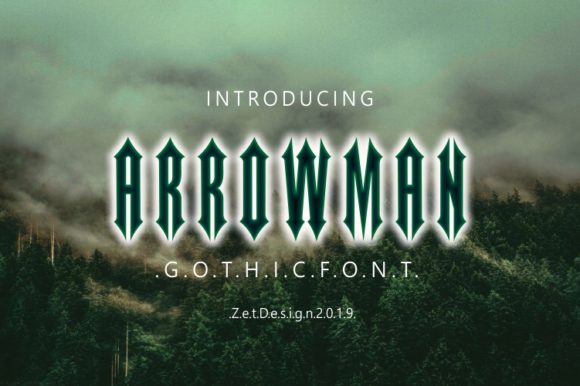
Immerse yourself in the world of rhythm and melody with the captivating Arrowman Font, the ultimate decorative font that dances upon the page like a symphony of notes. Crafted by the renowned ZetDesign, this awe-inspiring font embodies the essence of music, pulsating with energy and personality.
Unleash your creativity and design projects with the Arrowman Font, a true masterpiece that commands attention and ignites the senses. Its bold and striking characters possess an undeniable charm, reminiscent of Gothic architecture's grandeur. Each letterform is a work of art, intricately detailed and possessing a timeless elegance.
With the Arrowman Font, you'll captivate your audience and leave a lasting impression. Its versatility knows no bounds, transforming ordinary text into a visual feast. Whether you're designing posters, album covers, or website graphics, the Arrowman Font will elevate your work to new heights.
Stand out from the crowd with the Arrowman Font. Its bold strokes and exquisite details will make your designs shine. Let the Arrowman Font be your muse, inspiring you to create masterpieces that resonate with your audience.